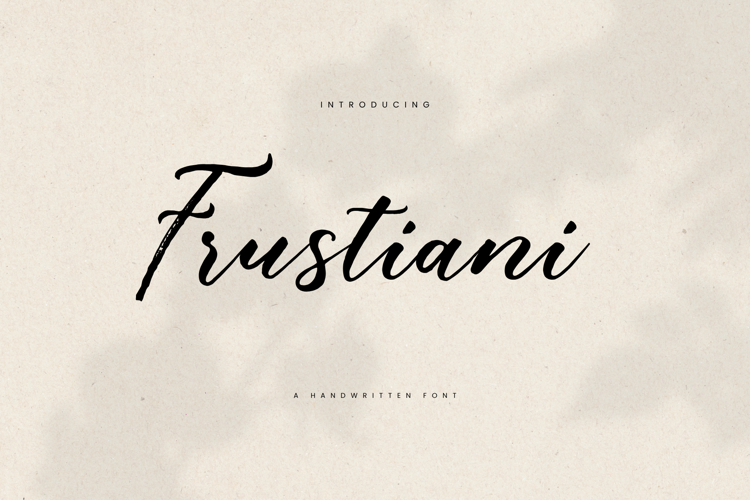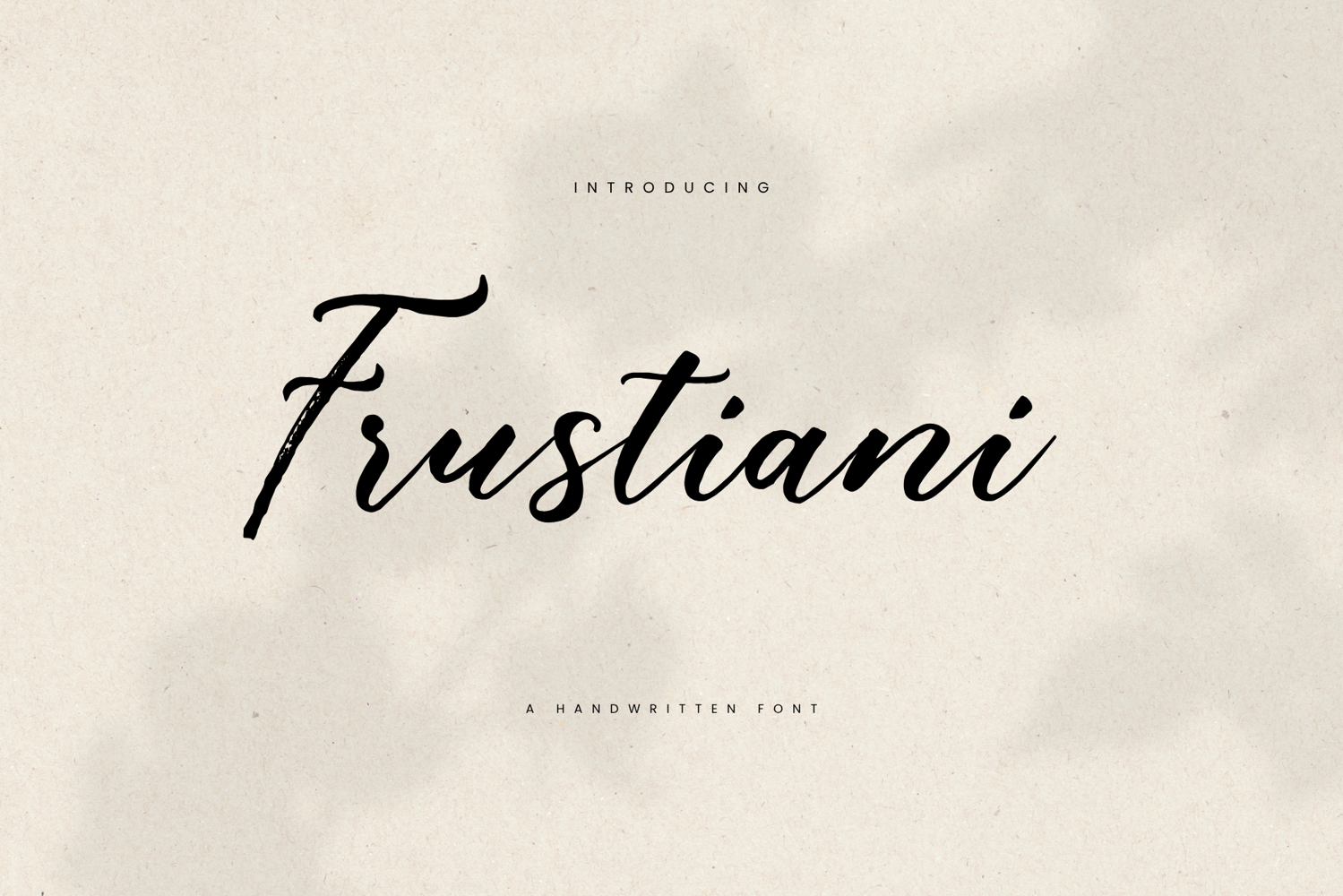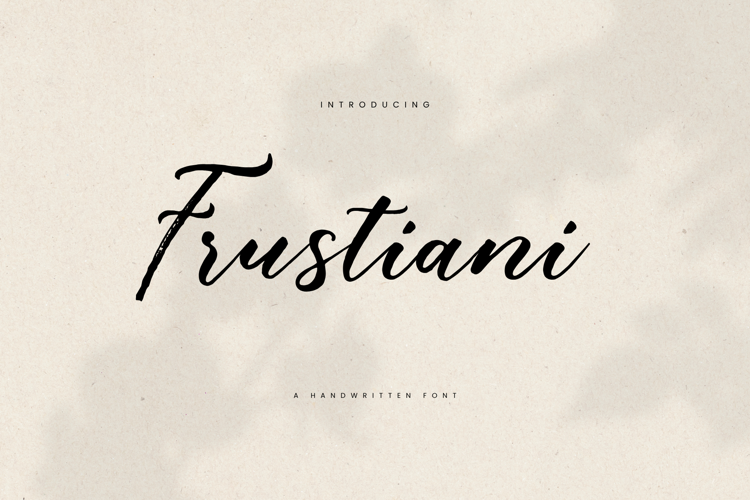
Frustiani is an elegant and stylish script font, often used for designs that require a feminine, romantic, or artistic touch.
This font has a smooth, curved handwritten form with a classic accent. The lines are soft, flowing naturally, creating a friendly and aesthetic impression. Suitable for wedding invitations, greeting cards, logo designs, branding, quotes, and decorative posters.
Frustiani creates a warm, graceful, and atmosphere, making it a popular choice for designs that want to leave a lasting impression.